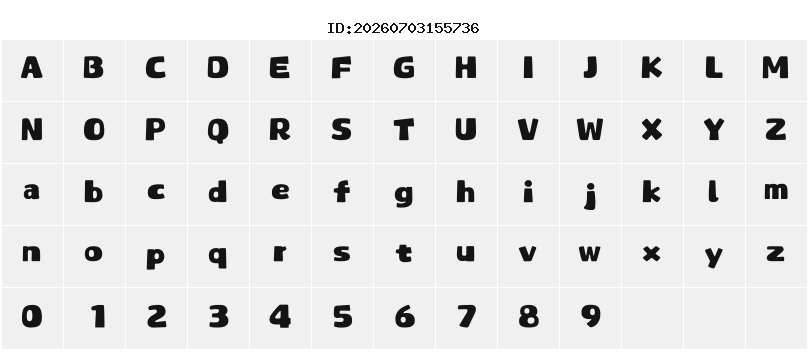
385-上首多肉体 Preview
• Font Name: 385-上首多肉体
• Full Font Name: 385-上首多肉体
About 385-上首多肉体.ttf
385-上首多肉体.ttf is a modern, elegant sans-serif font designed for ultimate readability and visual harmony. Perfect for branding, headlines, web design, and print materials.